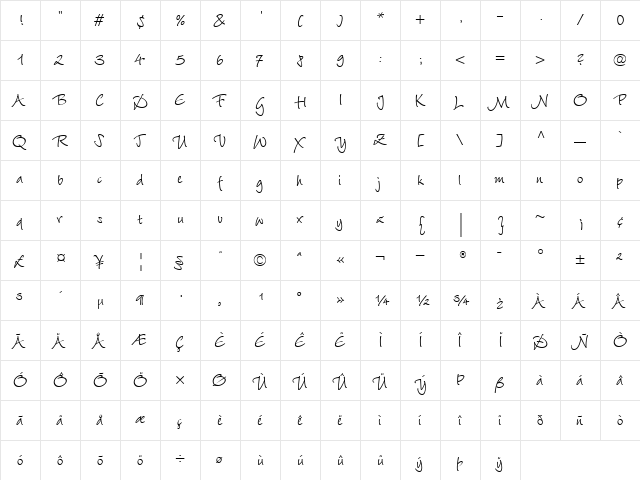
Barbara Hand Regular
Design Context for Barbara Hand Typeface
Barbara Hand flows with the natural rhythm of handwritten lettering, making it ideal for designs that call for warmth and personal expression.
Font Pairing: Combine Barbara Hand with a simple geometric sans for maximum contrast — the tension between flowing curves and clean structure is a classic typographic pairing.
Pro Tip: Use Barbara Hand for short runs of text — names, titles, or taglines. Extended body copy in script faces tires the eye quickly.